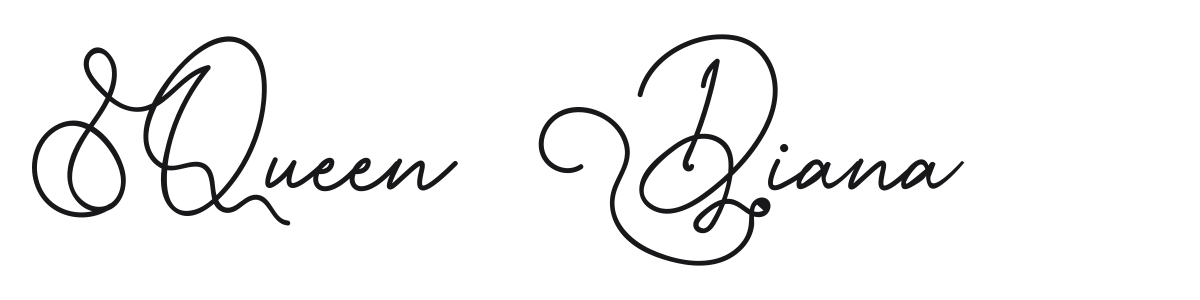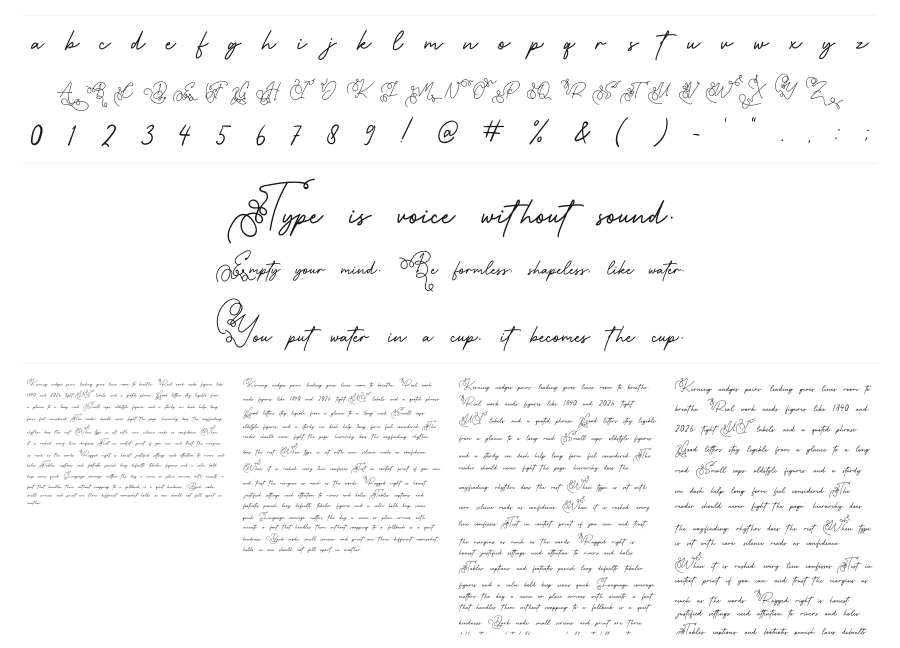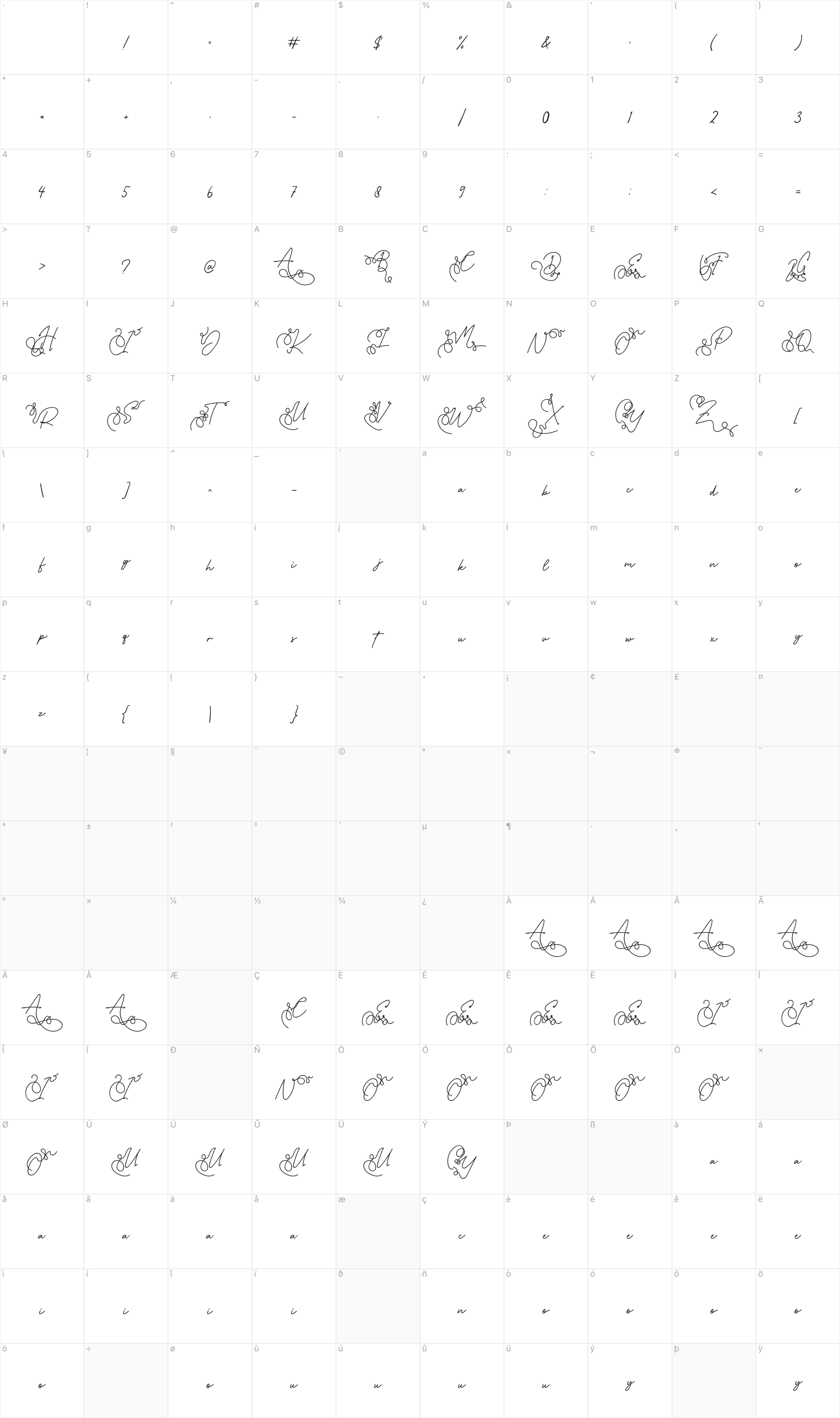
Queen Diana
Queen Diana is a flowing connected handwritten script with delicate, near-monoweight strokes and generous sweeping loops. The loose, signature-like rhythm feels refined without being stiff, sitting somewhere between casual handwriting and polished calligraphy. It reads best at large sizes where the graceful connections and airy spacing can breathe.